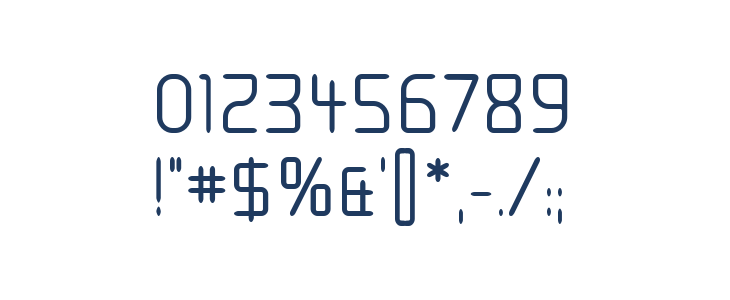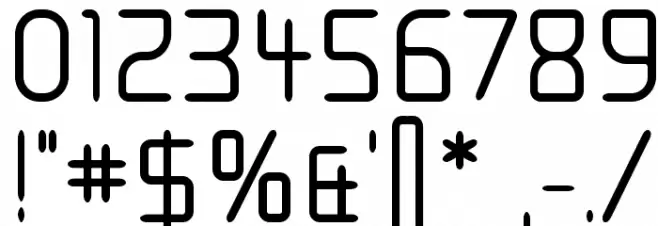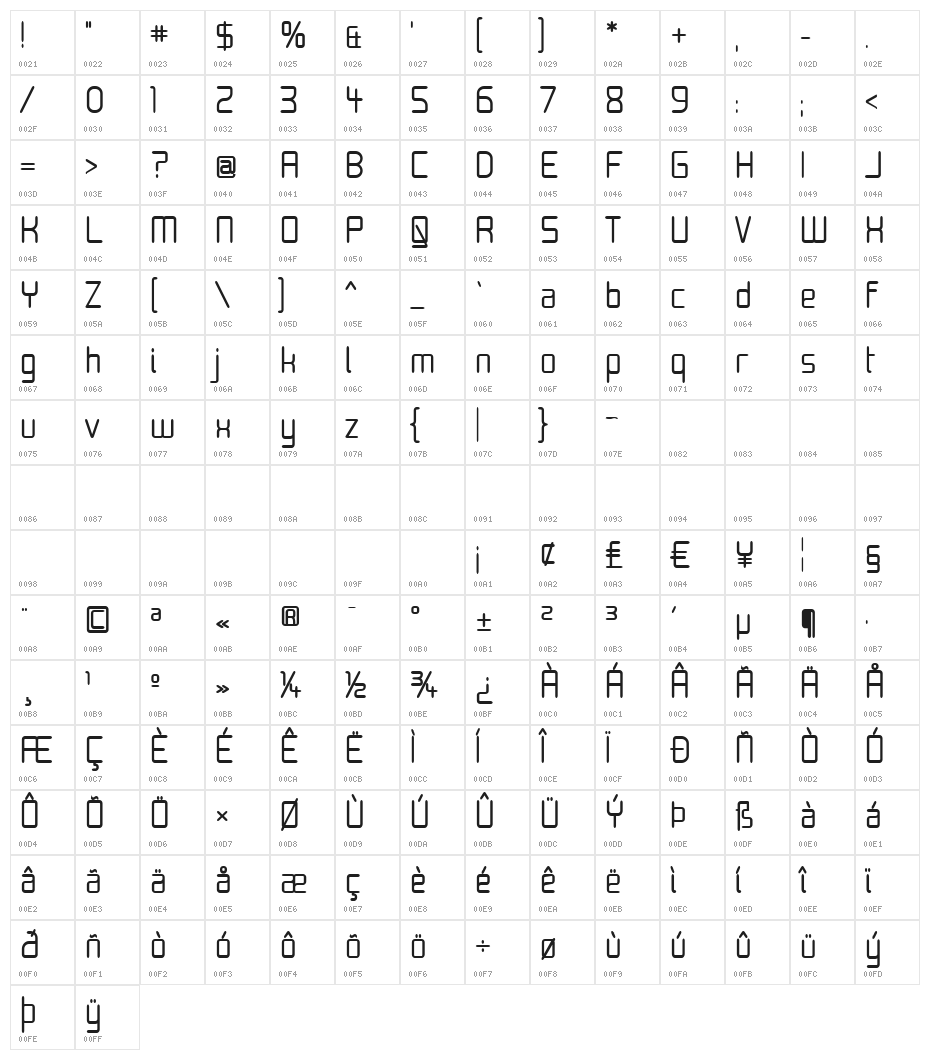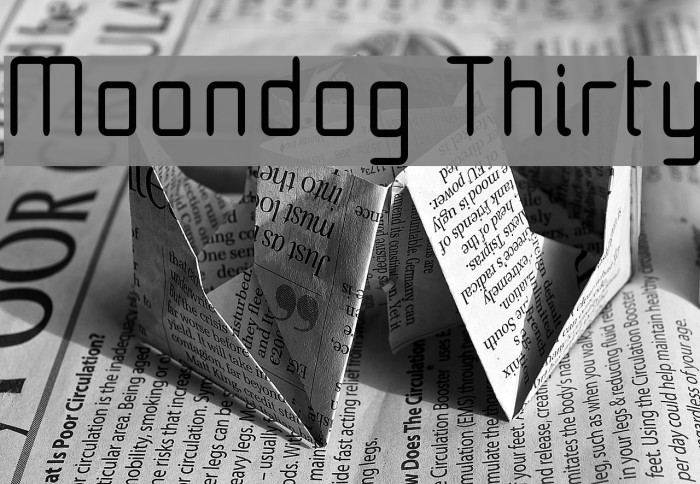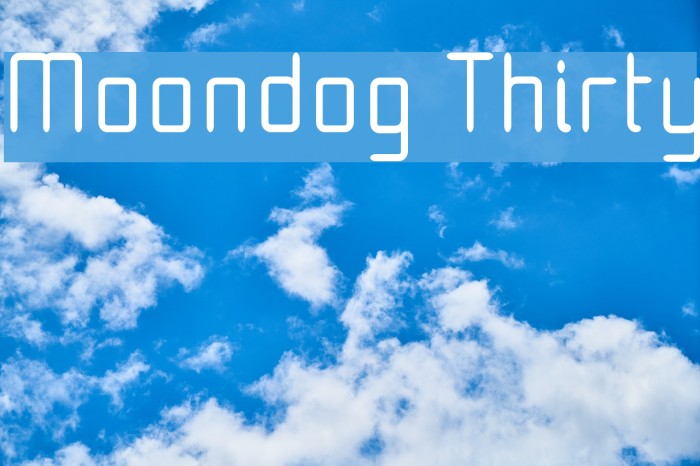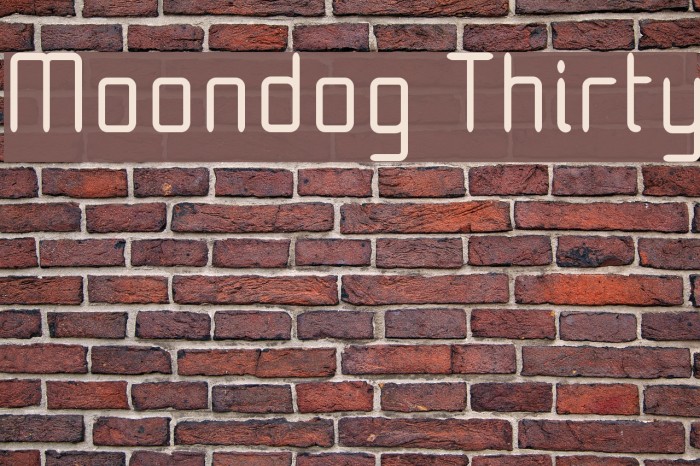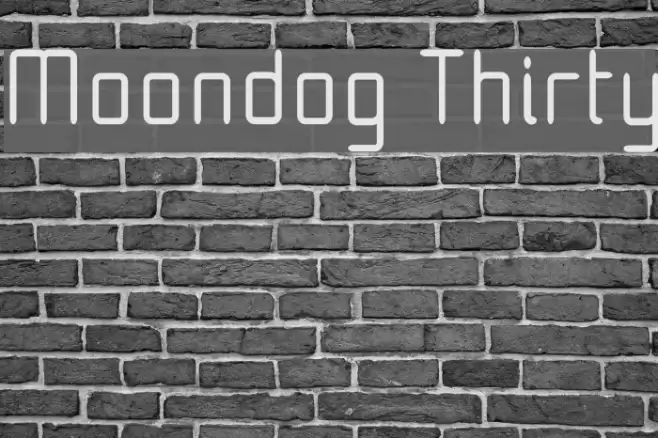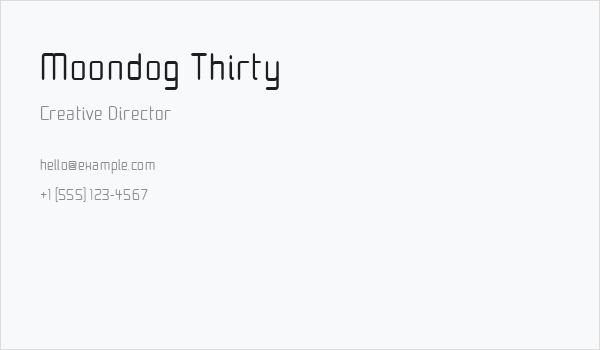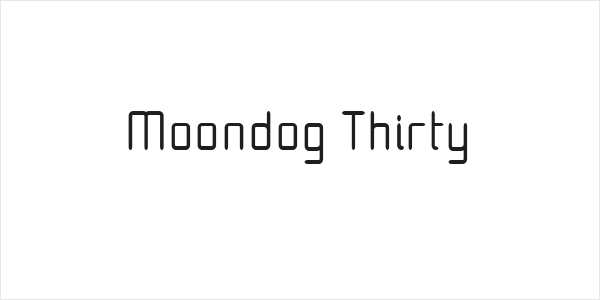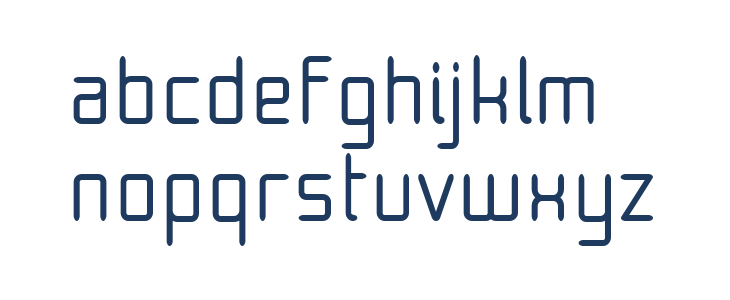
Moondog Thirty Font
Moondog Thirty Description
This font features a modern, geometric design with rounded edges and a clean, minimalist aesthetic. The characters are uniform in width, giving it a monospaced appearance, though it is not strictly monospaced. The uppercase letters are tall and narrow, while the lowercase letters maintain a consistent height that complements the uppercase. The numerals are clear and legible, matching the overall style of the alphabet. Special characters are distinct and maintain the same geometric style, ensuring consistency across the font. The overall look is sleek and futuristic, making it suitable for contemporary design projects.